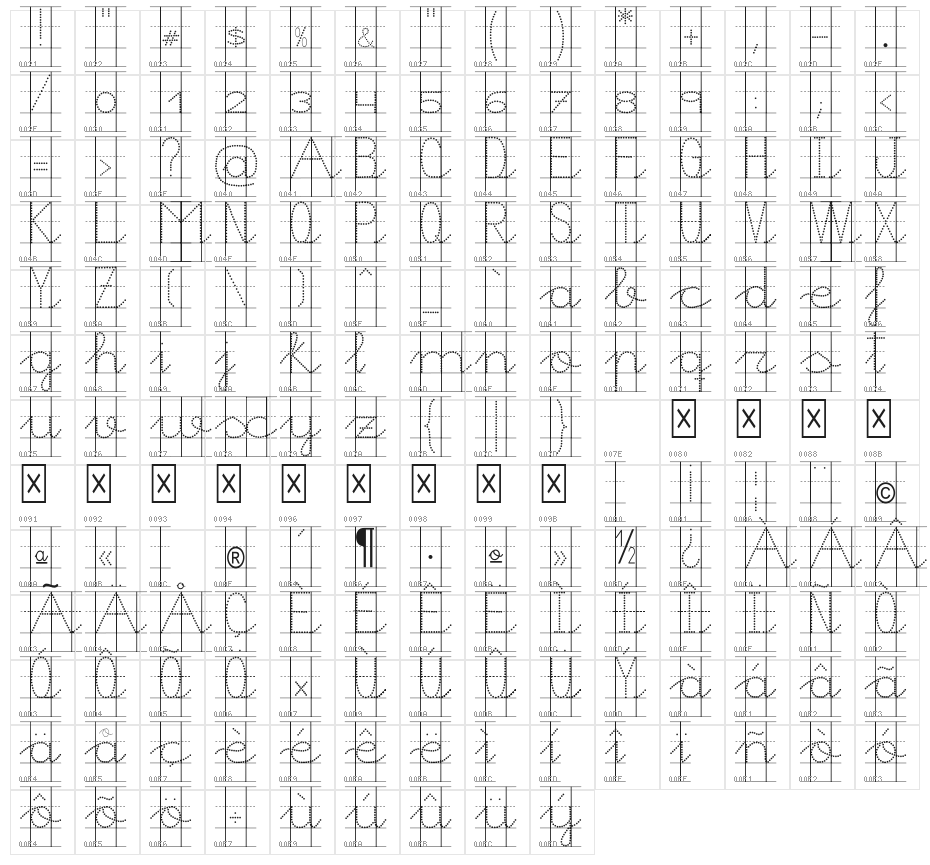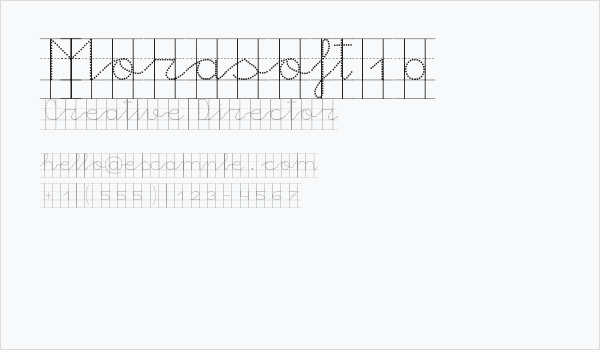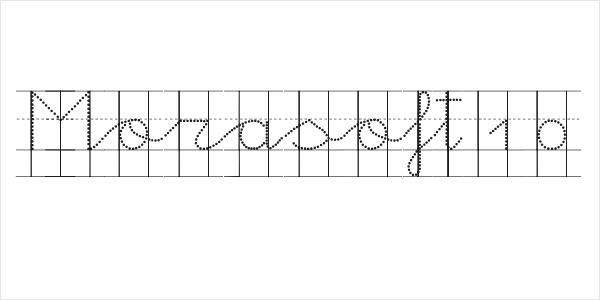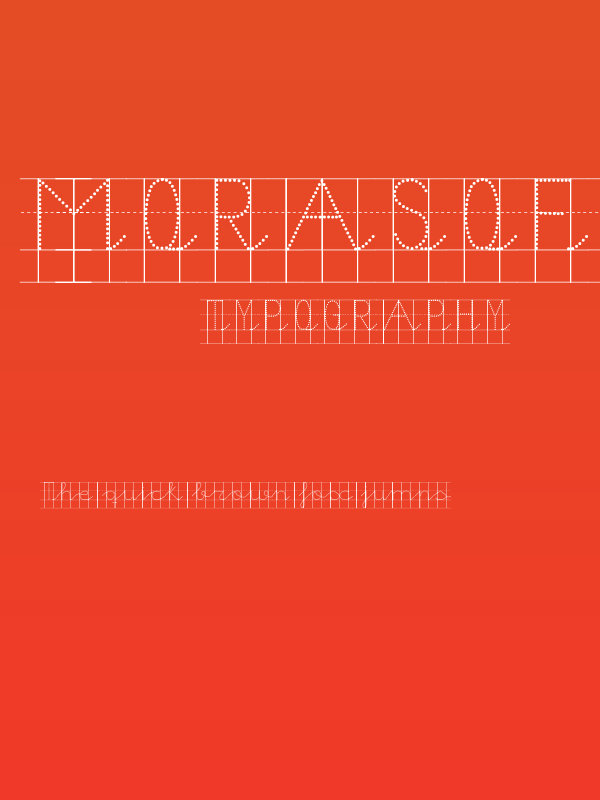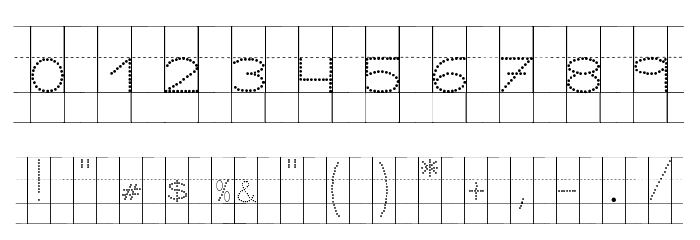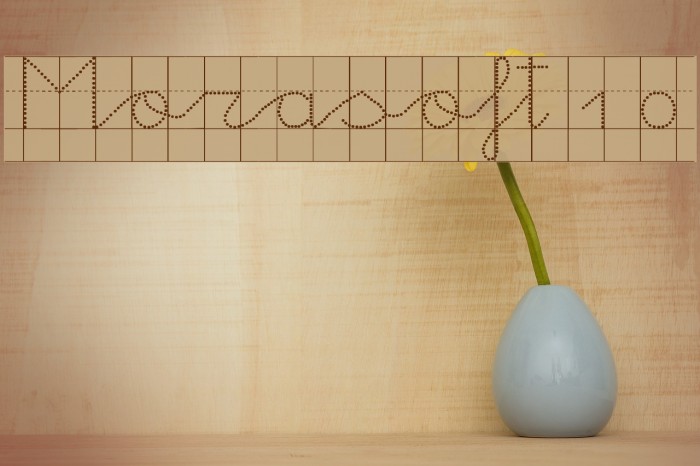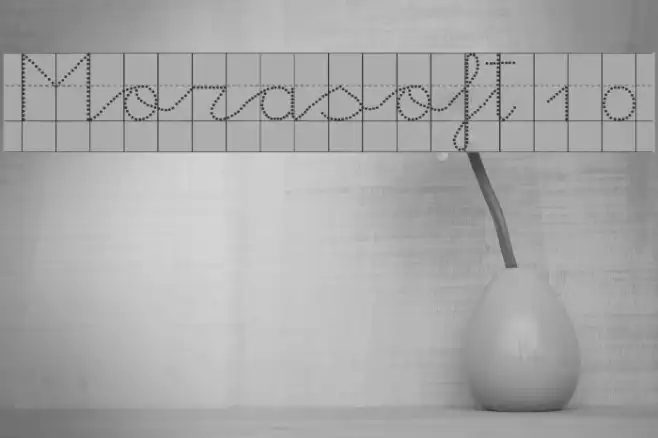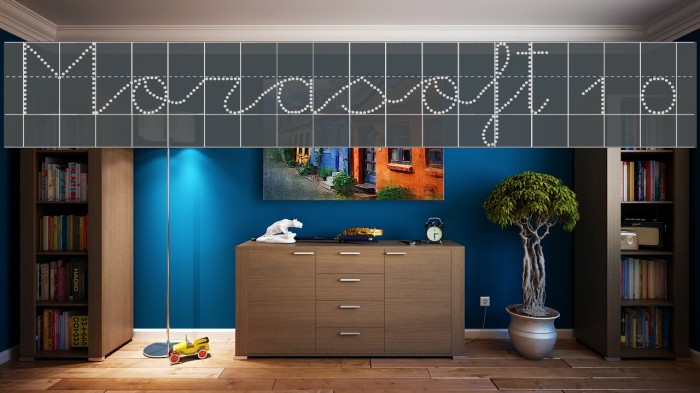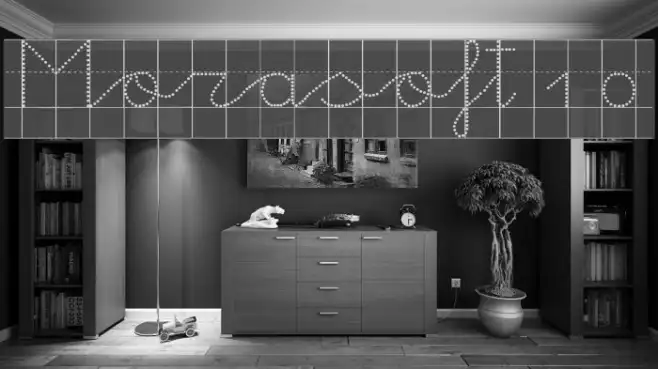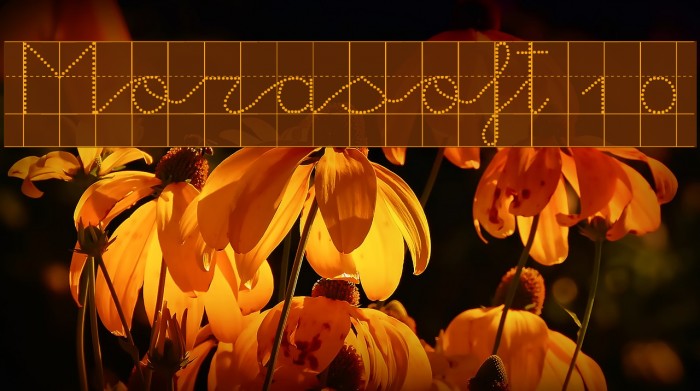
Morasoft10 Font
Morasoft10 Description
This font is a dotted, cursive style designed to aid in handwriting practice. Each letter is formed with a series of dots, providing a guide for learners to trace and develop their cursive writing skills. The uppercase and lowercase letters are connected, mimicking traditional cursive handwriting. The numbers and special characters are also presented in a dotted format, ensuring consistency across the font. The design is simple and functional, focusing on educational use rather than decorative appeal.
| Overall Style | Educational |
| Use Case | Handwriting practice, educational materials. |
| Proposed Projects | Ideal for educational materials, handwriting worksheets, and practice books for children learning cursive writing. |